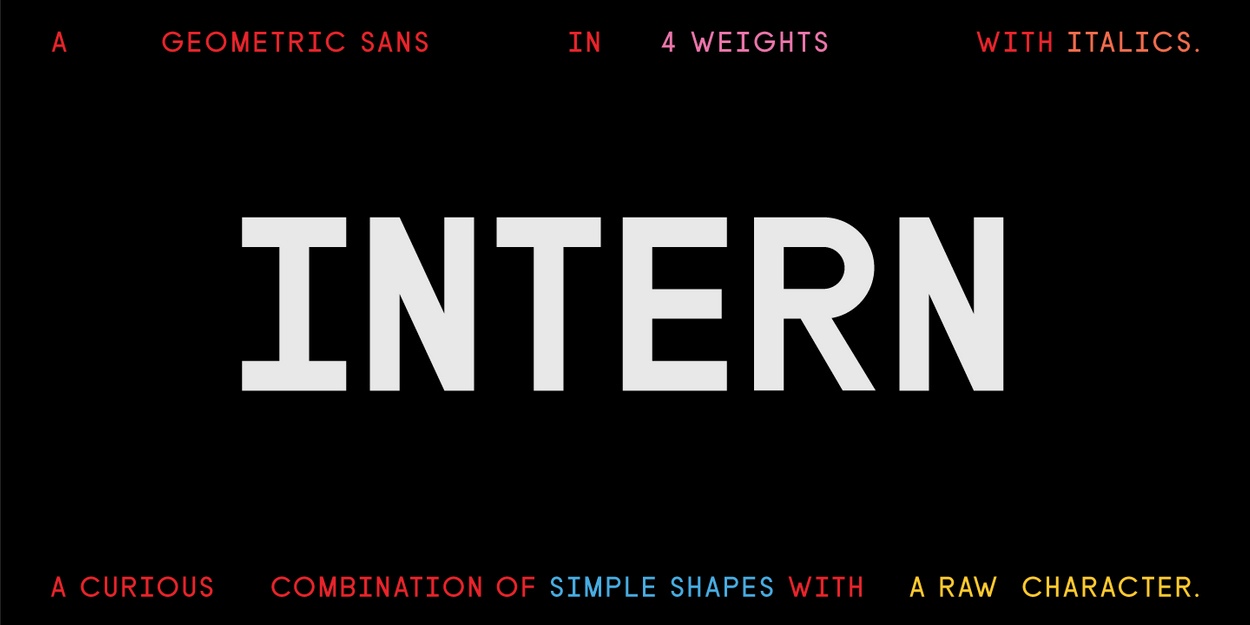
Intern Sans Font
Intern Sans Font is perfect for corporate presentations, professional documentation, business reports, startup branding, tech company interfaces, educational platforms, career development materials, LinkedIn profiles, resume templates, and modern office communications.
What makes Intern Sans Font exciting is its clean professionalism that perfectly balances approachability with corporate credibility. The font embodies the fresh energy and ambition of the modern workplace while maintaining the sophistication required for professional environments. Its crisp letterforms and contemporary styling make it ideal for brands and organizations that want to communicate innovation, growth potential, and professional excellence while appealing to younger demographics and forward-thinking professionals.
Intern Sans Font family includes comprehensive weights ranging from Thin to Black, typically featuring Light, Regular, Medium, Semi Bold, Bold, and Heavy variations with corresponding italic styles. The family often includes condensed versions and extended character sets that provide maximum flexibility for professional document design, user interface development, and corporate branding applications.